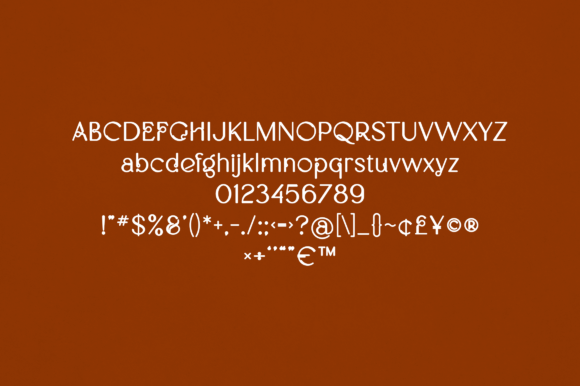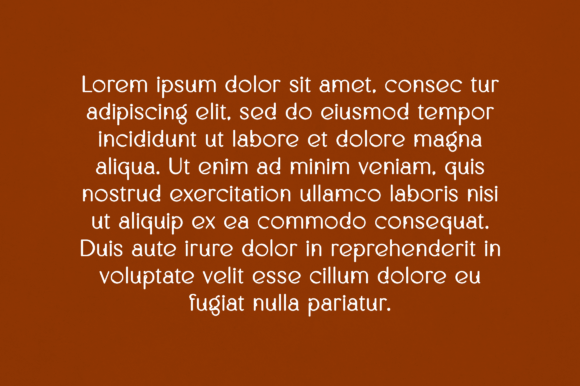
Introduction to Ezlyn Font
Have you ever been in the midst of a creative project, staring at a blank page, and suddenly, a spark of inspiration hits you? That’s exactly what happened when I first laid eyes on the Ezlyn Font. Its elegant and versatile design captivated me, and I knew I had to learn more about this incredible design resource.
As designers, we’re always on the lookout for that perfect font to elevate our work and make it truly unique. The Ezlyn Font is a high-quality addition to any creative project, whether it’s branding, product packaging, or a magazine header. Its versatility and style make it a valuable asset for designers, and the best part? It’s available for free download, allowing you to add a touch of sophistication to your designs without breaking the bank.
With its transparent background and sleek design, the Ezlyn Font is a game-changer for designers who want to take their typography to the next level. Whether you’re working on a complex branding project or just need a stylish text overlay for a background image, the Ezlyn Font is an excellent choice. In this article, we’ll delve deeper into the world of this enchanting font and explore its many uses and benefits.
Ezlyn Font
- High-quality, elegant design suitable for creative projects
- Features a transparent background, ideal for overlaying on images or graphics
- Includes a range of characters, including uppercase and lowercase letters, numbers, and symbols
- Designed as a versatile design resource for various applications, including branding, advertising, and digital art
Honest Review: Ezlyn Font
I recently came across the Ezlyn Font, a free download that caught my eye with its unique design. As a designer, I’m always on the lookout for high-quality design resources that can elevate my creative projects.
What works well about Ezlyn Font is its modern aesthetic and versatility. It’s perfect for a variety of design applications, from branding to digital products. The font is also available for free download, which is a huge plus for designers on a budget.
- ✨ Unique design aesthetic that stands out from the crowd
- ✨ Versatile font that can be used for various design applications
- ✨ Transparent background, allowing for easy customization
One limitation of the Ezlyn Font is its limited character set. While it’s a great font for body text, it may not be suitable for extensive typography or large blocks of text.
Overall, I’m impressed with the Ezlyn Font and would recommend it to designers looking for a high-quality, free design resource. Its unique design and versatility make it a great addition to any creative project.
Tips for Getting the Most Out of Ezlyn Font
To get the most out of Ezlyn Font, use it on a transparent background to create a clean and modern design. You can also experiment with different font sizes and colors to create a unique look.
Ezlyn Font is ideal for creative projects such as logo design, branding, and marketing materials. It’s also great for creating social media graphics, flyers, and brochures.